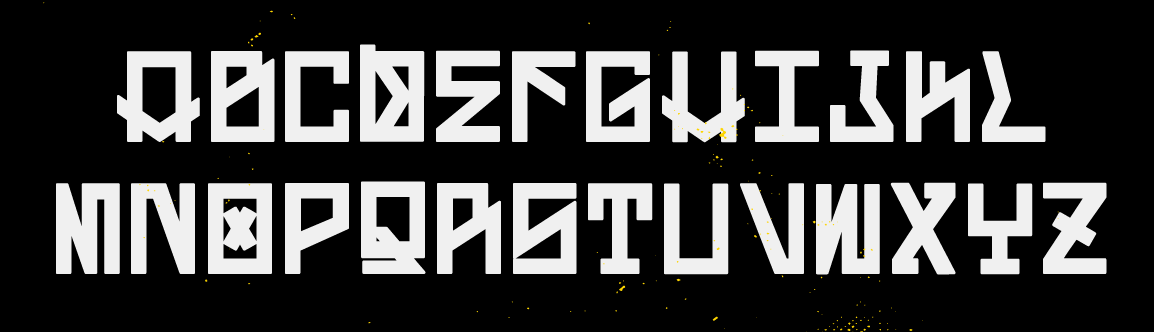
Ryan Cassidy
Los Angeles-based designer of Pliny (2018), a typeface that is based on the beer label for Pliny the Elder from Russian River Brewing. He also designed the octagonal mechanical typeface Mascot (2018) and the experimental Mash (2018).
In 2019, he published East Bay (garffiti-inspired, constructivist), Lightning, Lost Boy, Horror, Roar, Group Therapy, Uncle Fuzz, Feeding The Streets and Old Horror Movie Style Font.